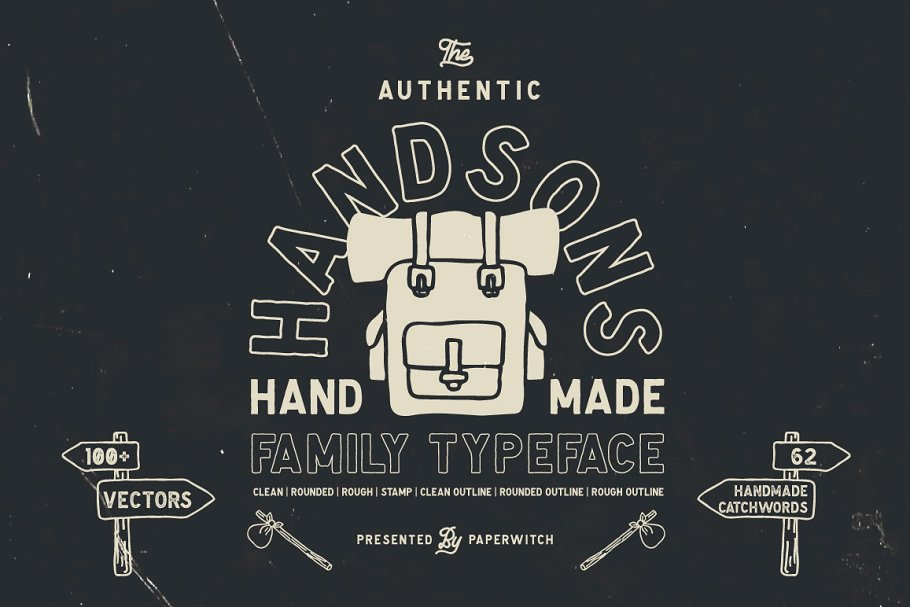
Are you tired of boring and generic fonts? Look no further, because Handsons Typeface is here to elevate your designs to a whole new level! Created by Paper Witch, this sans serif font family is the ultimate solution for all your design needs.
With its strong character and high readability, Handsons Typeface is perfect for a wide range of design projects. Whether you're working on posters, labels, book titles, or any other creative endeavor, this font will add a touch of elegance and uniqueness to your work.
But that's not all! Handsons Typeface offers a variety of versions to suit your specific preferences. Choose from 7 different styles, including Clean, Clean Outline, Rounded, Rounded Outline, Rough, Rough Outline, and Stamp. Each style comes in both ttf and otf formats, ensuring compatibility across various platforms.
Don't settle for ordinary fonts that blend in with the crowd. Let Handsons Typeface be your secret weapon in creating captivating and eye-catching designs. Stand out from the competition and leave a lasting impression on your audience.